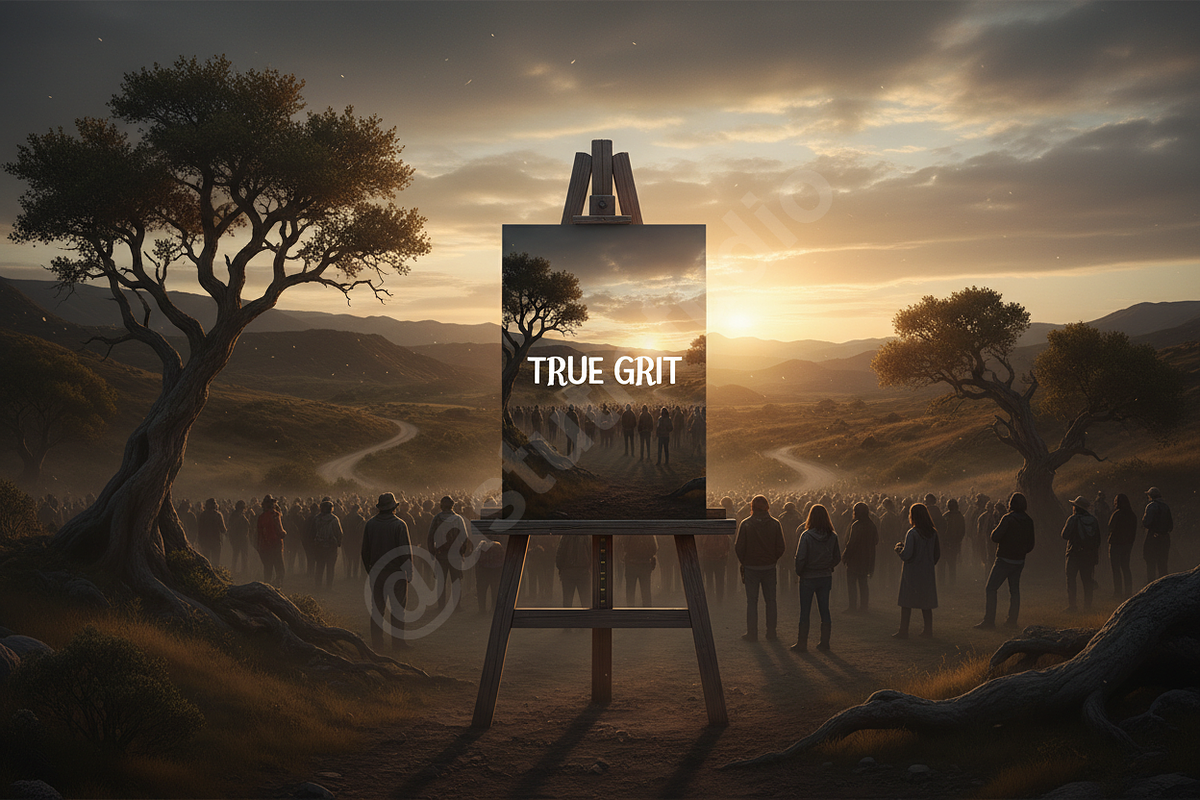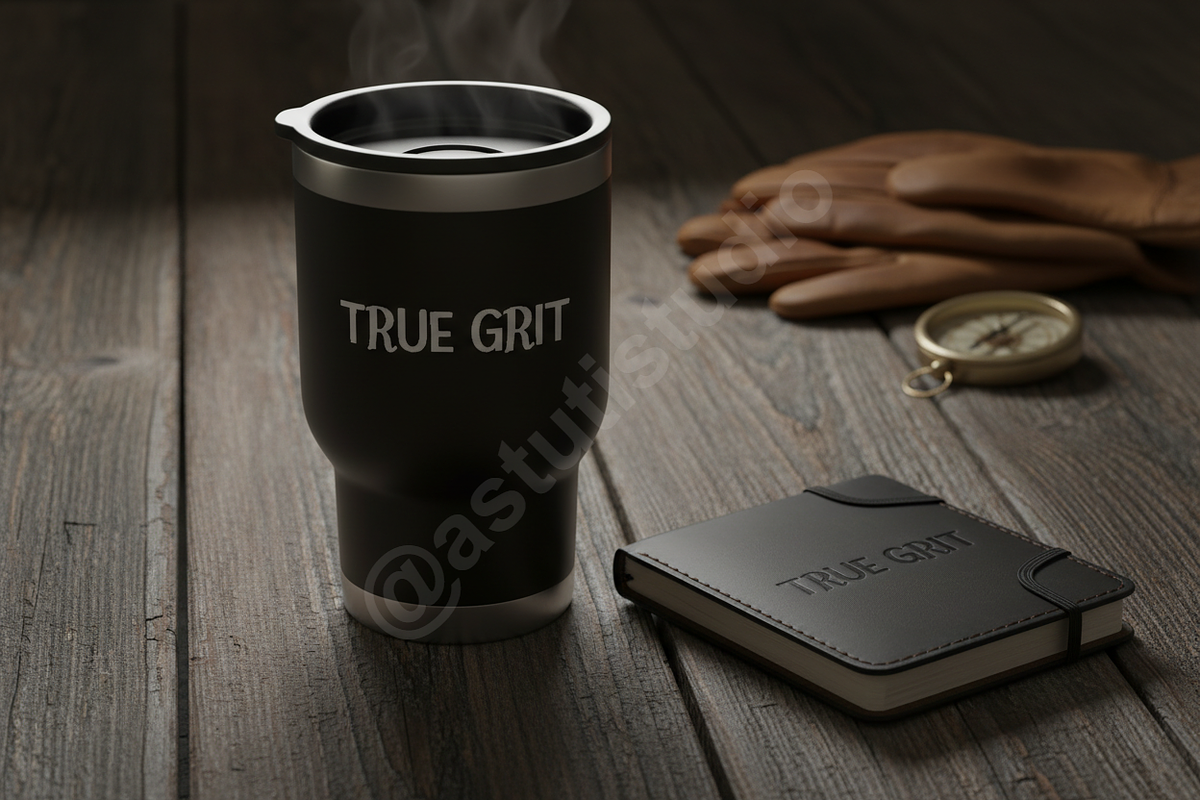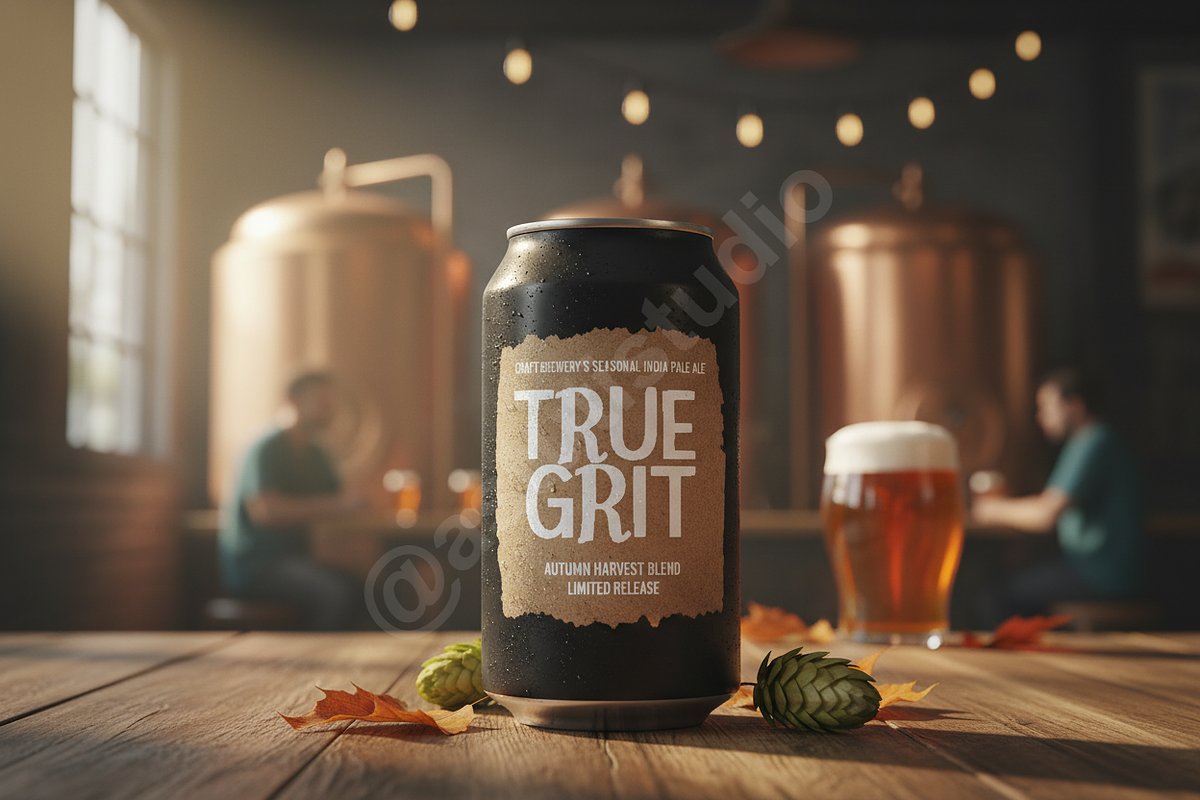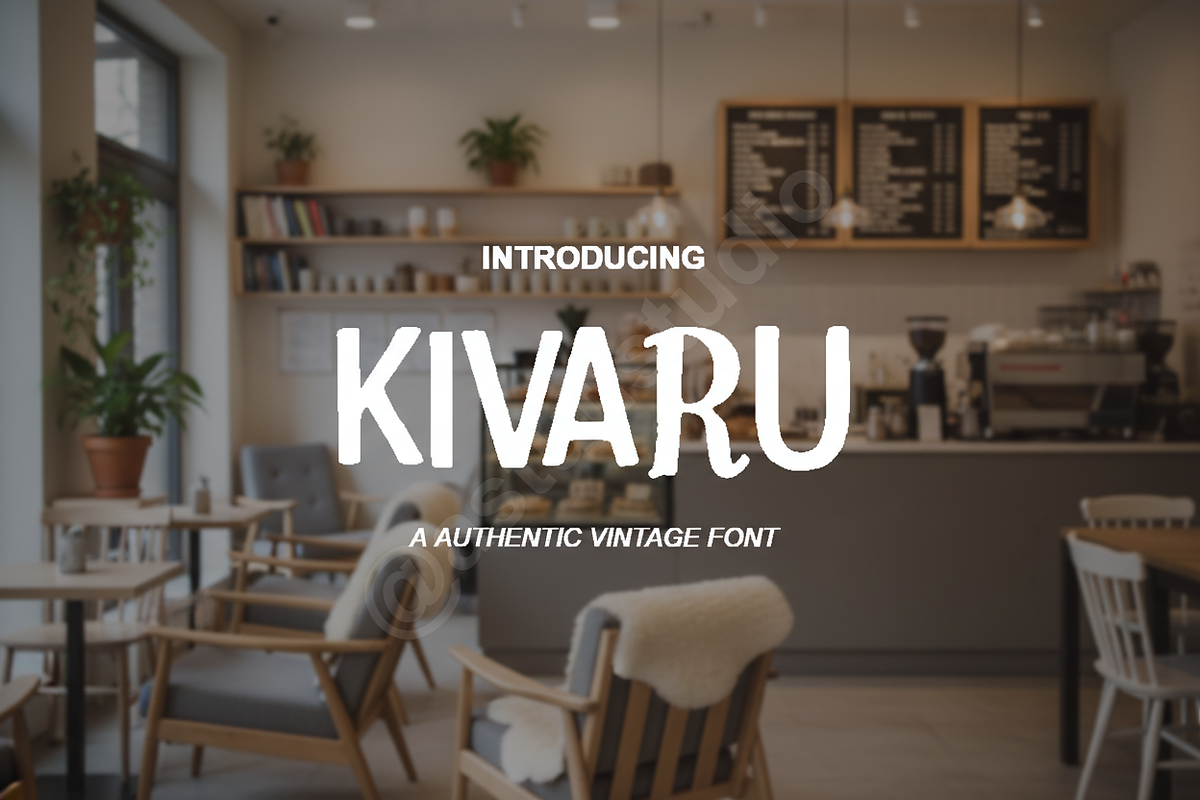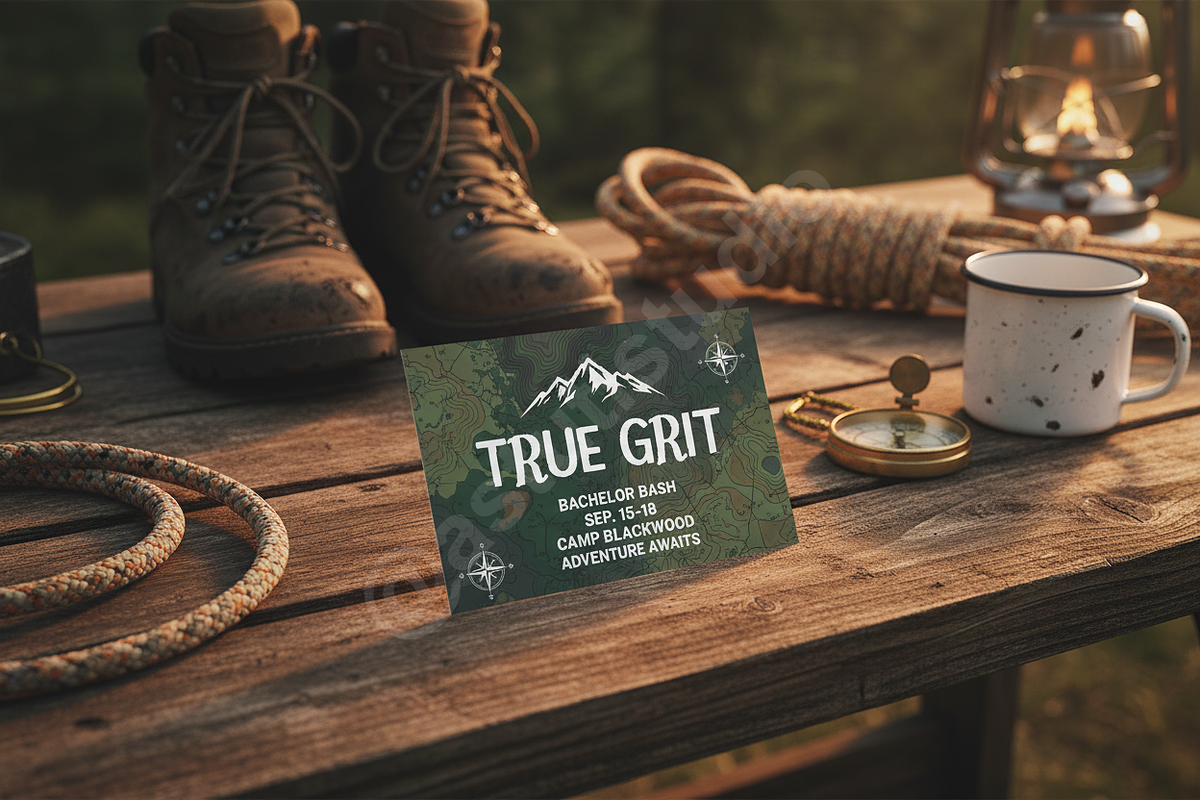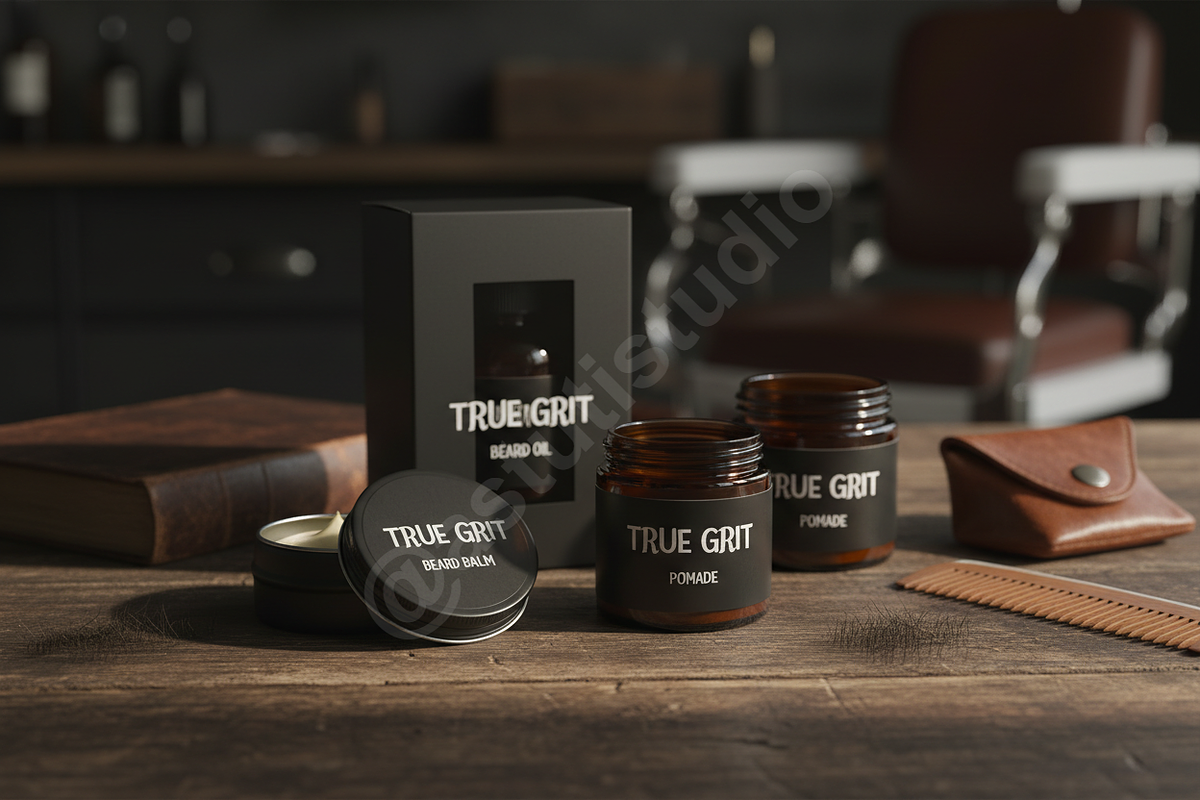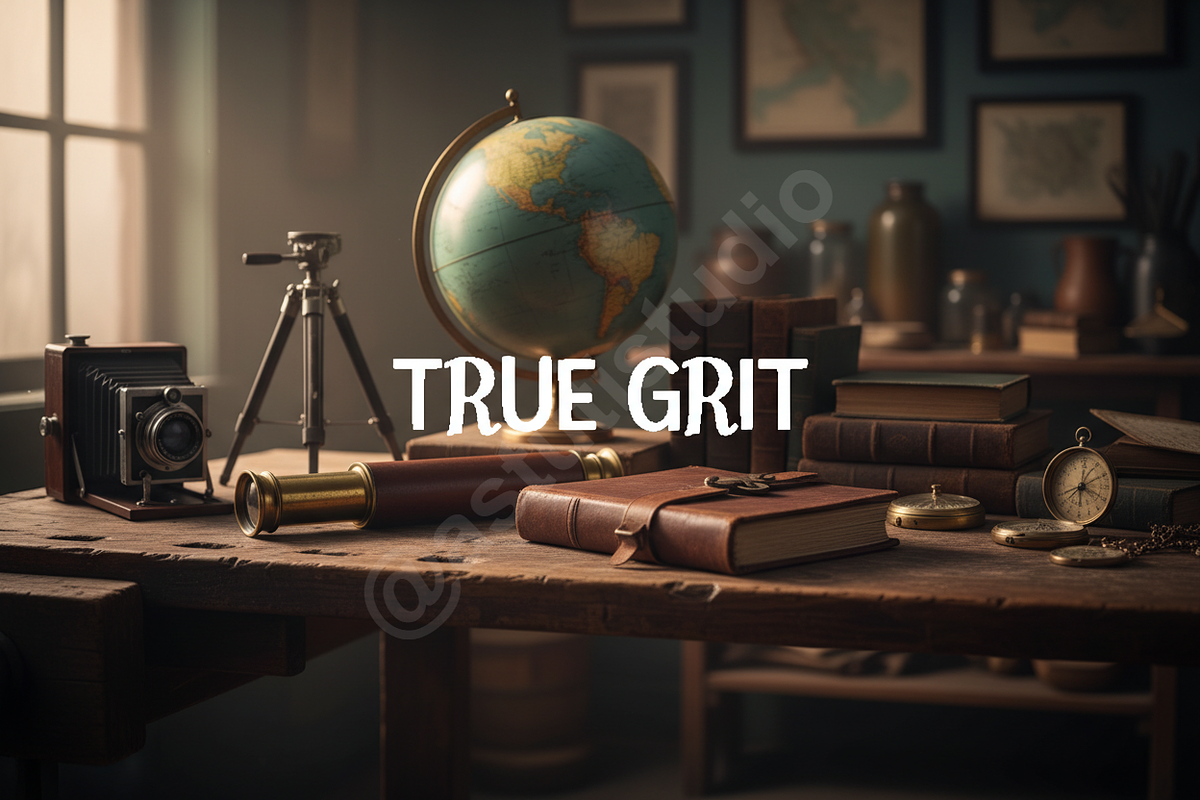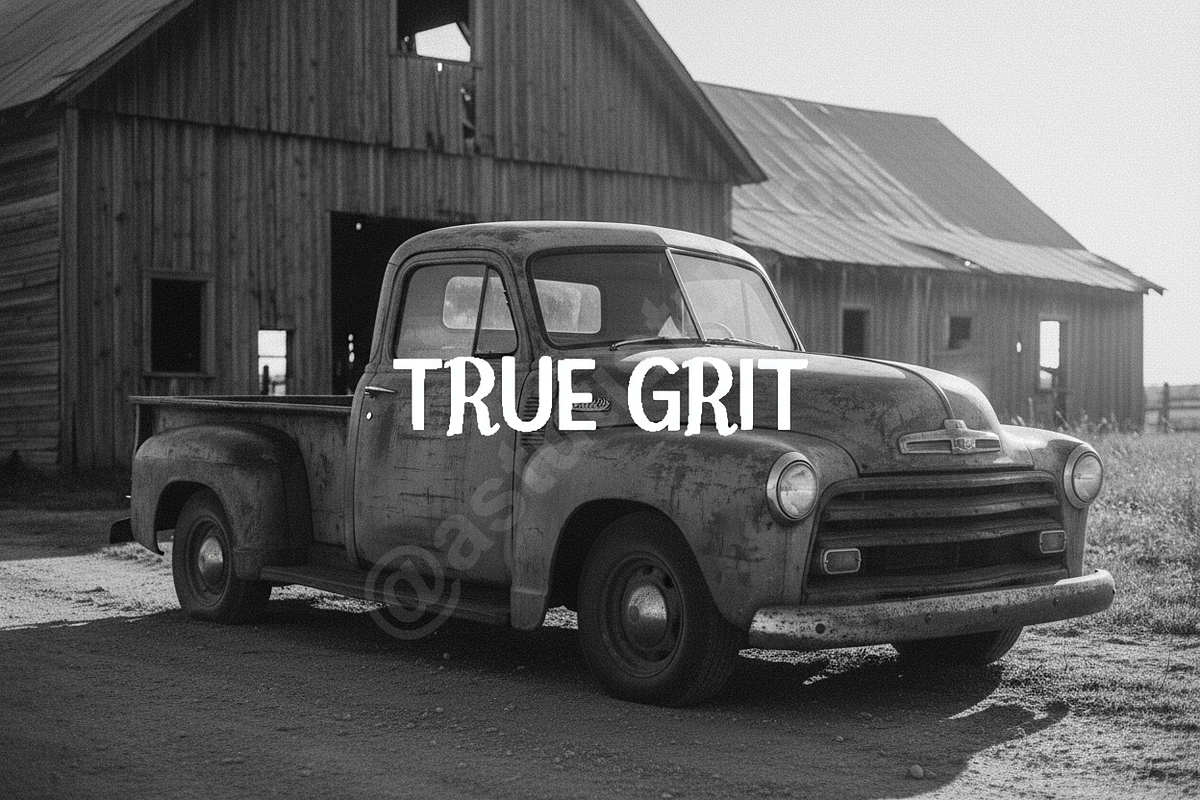
Kivaru - A Sophisticated Luxury Seri
INTRODUCING KIVARU
Kivaru is a premium serif typeface meticulously crafted for the modern aesthetic. Defined by its high contrast, graceful curves, and refined proportions, Kivaru brings an effortless air of luxury to any design canvas. It is the perfect choice for high-end branding, sophisticated editorial layouts, and impactful social media content. Whether you are designing for a fashion house or a boutique hotel, Kivaru provides the timeless elegance your project deserves.
PRODUCT FEATURES
- Full uppercase and lowercase character set
- Extensive multilingual support for global reach
- Elegant stylistic alternates and ligatures
- Clean, high-contrast serif details
- Perfectly balanced kerning for professional results